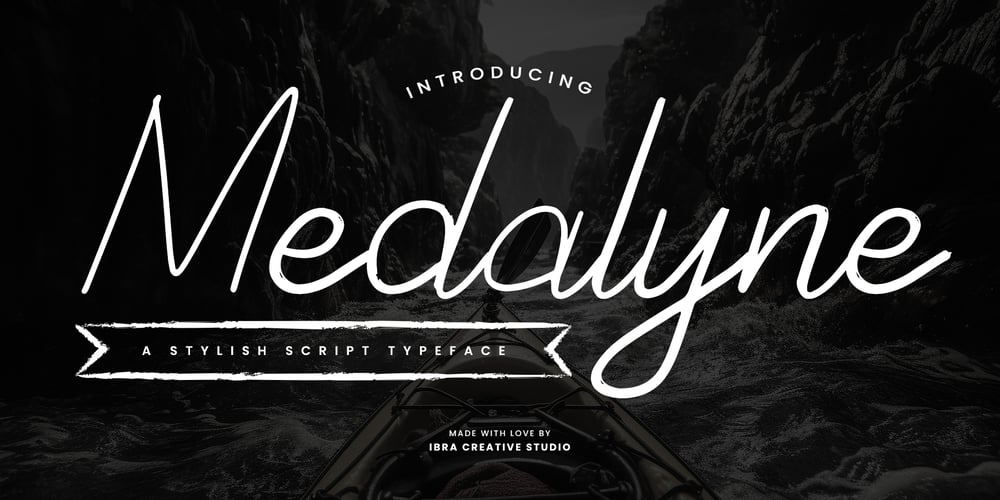
Medalyne Font Family was designed by Roisatul Azizah and published by IbraCreative. Medalyne contains 1 styles and family package options. Medalyne – A Stylish Script TypefaceMedalyne, a stylish script typeface, effortlessly marries elegance with modernity, creating a captivating visual symphony that is both timeless and contemporary. The graceful curves and fluid strokes of Medalyne’s letterforms exude a sense of sophistication, making it an ideal choice for projects that demand a touch of refined aesthetics. Each character is meticulously crafted, striking a delicate balance between legibility and artistic flair. The flowing, connected nature of the script imparts a seamless and polished appearance, conveying a sense of effortless beauty. Medalyne’s versatility shines through as it lends an air of sophistication to invitations, branding, and editorial designs, establishing itself as a go-to choice for those seeking a typeface that seamlessly merges style and substance.Medalyne is perfect for branding projects, logo, wedding designs, social media posts, advertisements, product packaging, product designs, label, photography, watermark, invitation, stationery, game, fashion and any projects.Fonts include multilingual support for; Afrikaans, Albanian, Czech, Danish, Dutch, English, Estonian, Finnish, French, German, Hungarian, Italian, Latvian, Lithuanian, Norwegian, Polish, Portuguese, Slovak, Slovenian, Spanish, Swedish.